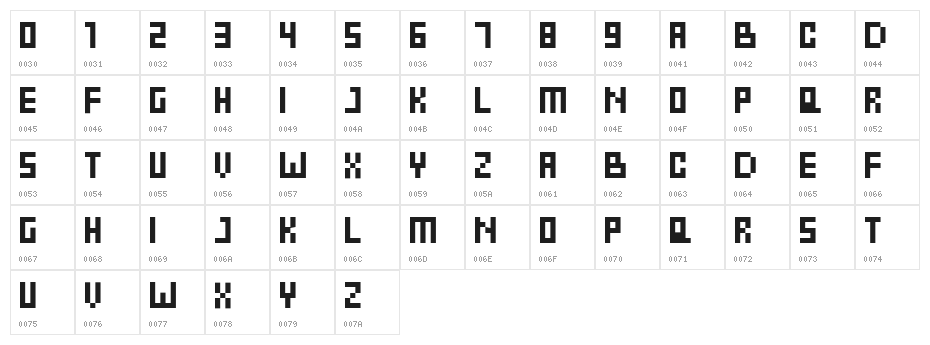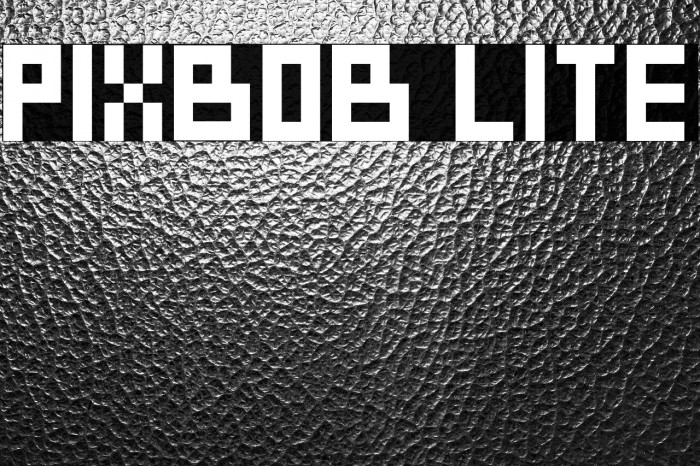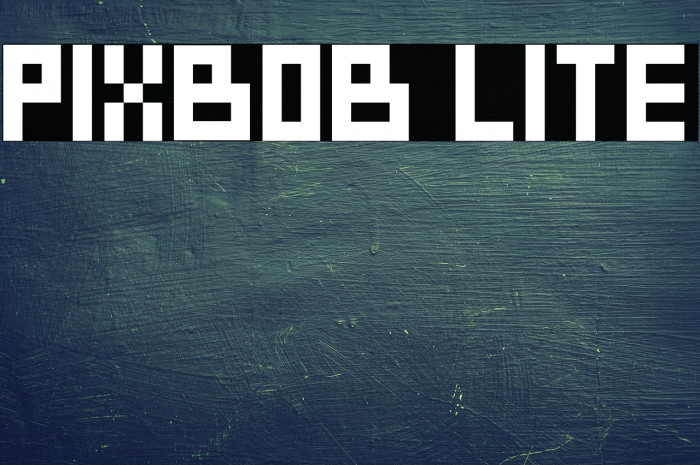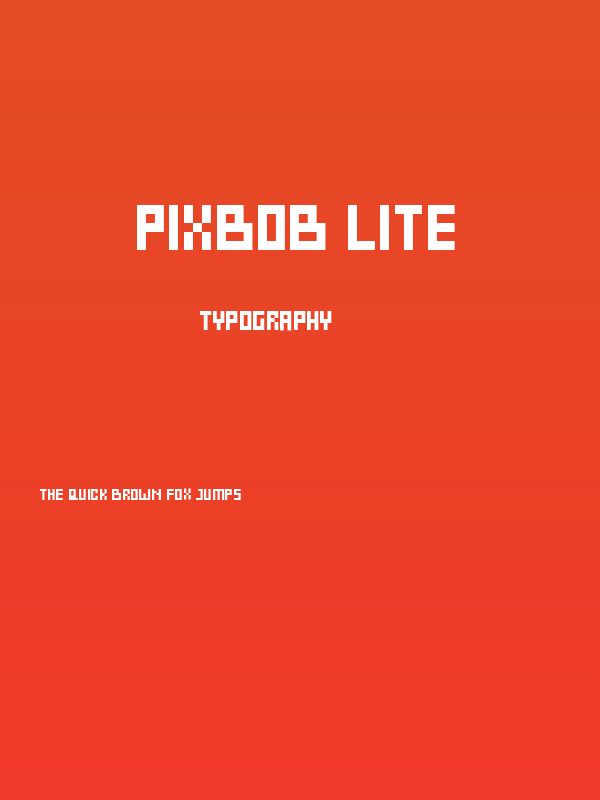
PixBob Lite Font
PixBob Lite Description
This font features a bold, blocky design with a pixelated aesthetic reminiscent of early digital displays and video games. Each character is constructed with sharp, angular lines, creating a uniform and structured appearance. The uppercase and lowercase letters maintain a consistent height, contributing to a cohesive look. The numerals and special characters follow the same geometric style, ensuring visual harmony across all elements. This font's distinct style makes it ideal for projects that require a retro or tech-inspired theme, offering a nostalgic yet modern appeal.
| Overall Style | Retro, Digital |
| Proposed Projects | Ideal for video game graphics, tech-themed posters, digital art, and retro-style branding. |